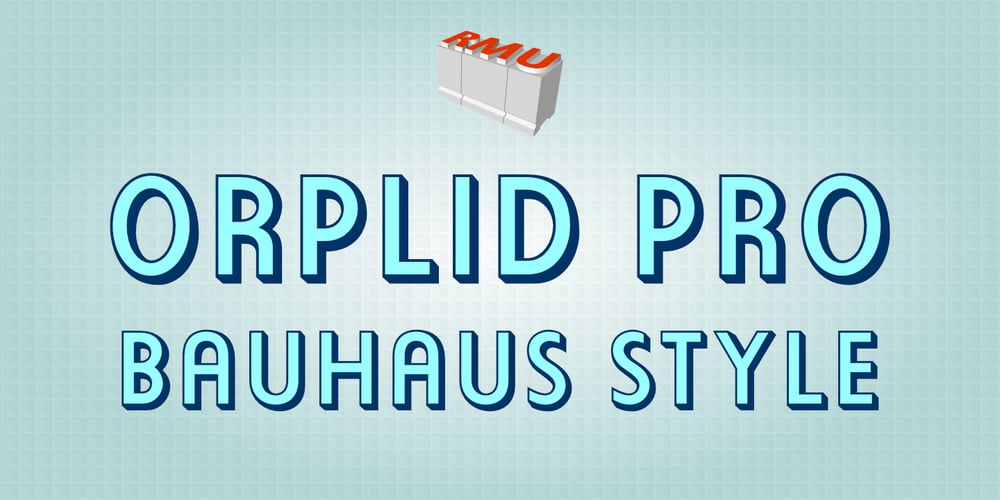
Orplid Pro
Orplid Pro font
Orplid Pro Font Family was designed by Ralph M. Unger and published by RMU. Orplid Pro contains 2 styles and family package options. Hans Bohn’s Orplid, a shadowed sans serif font strongly influenced by the then prevailing Bauhaus style, and released by Klingspor in 1929, was revived and vastly extended for multilingual use. In addition, a filling style was made to easily accomplish colorful headlines, ads and posters. Both styles come with alternatives for A, M, N and W.